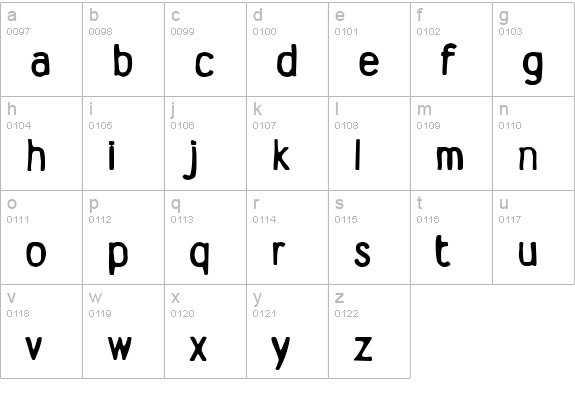
Wyvern Ink font is a striking display typeface that exudes a bold and modern aesthetic. With its unique blend of sharp angles and sleek lines, this font is perfect for making a statement in your designs. The Wyvern Ink font is versatile and can be used for a variety of projects, from branding to posters to social media graphics. Best of all, Wyvern Ink font is completely free to download at FontsMarket.com. Whether you're a designer looking to add a touch of edginess to your work or a creative individual seeking a fresh new font for personal projects, Wyvern Ink font is a fantastic choice. Download it today and start unleashing your creativity with this eye-catching typeface.